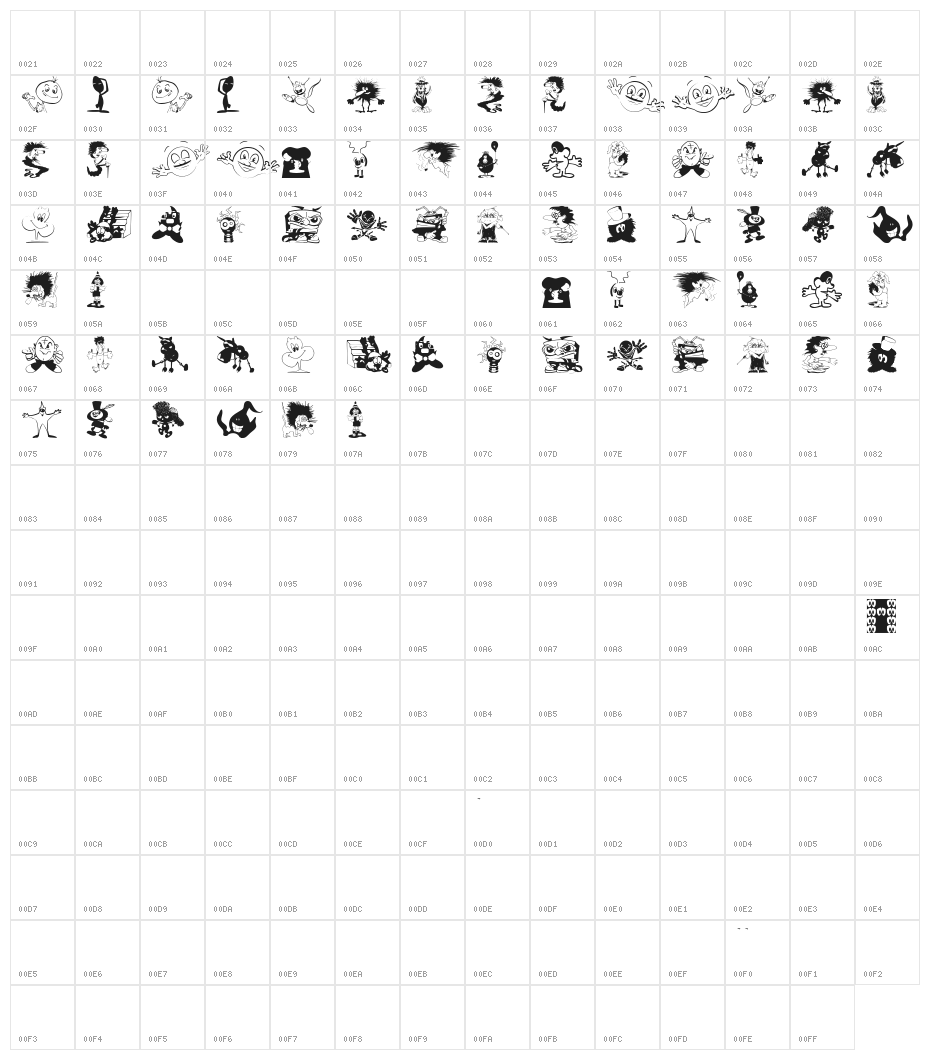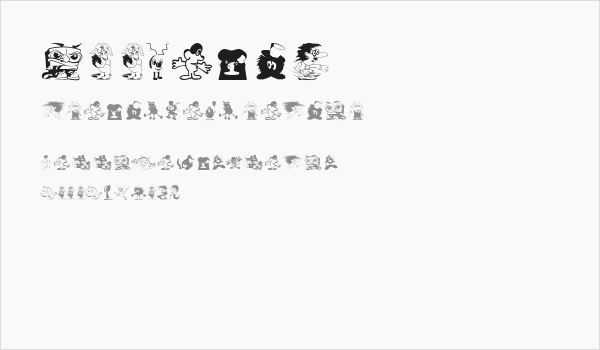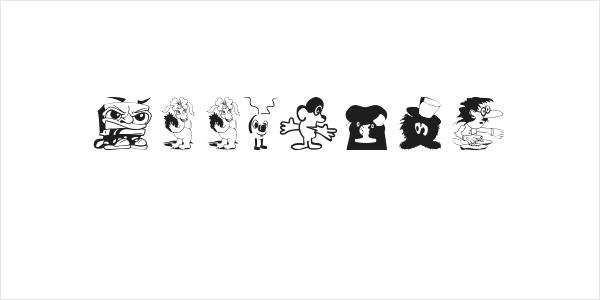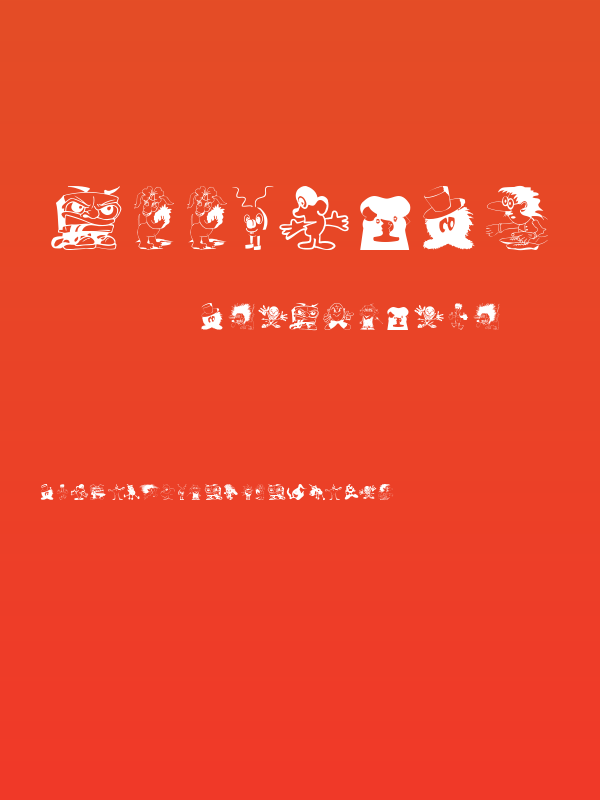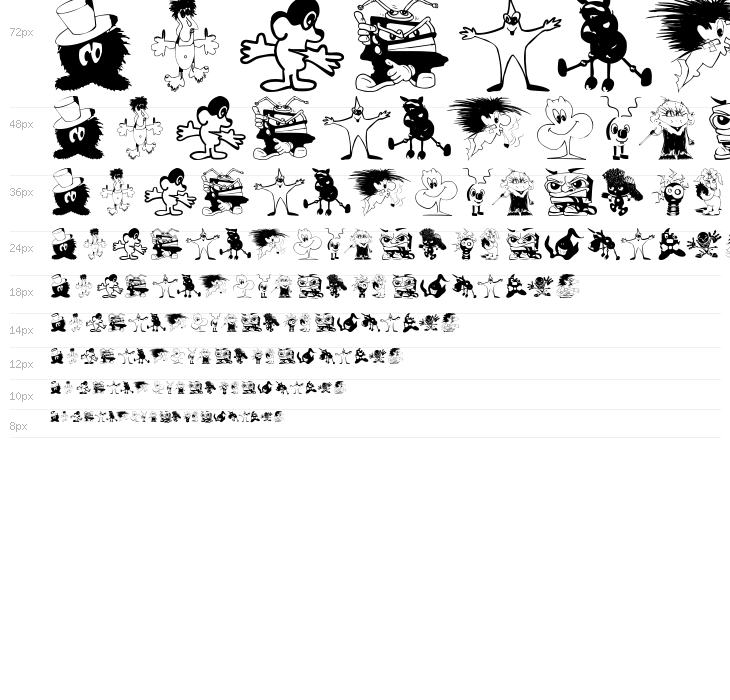
Offbeats Font
Offbeats Description
A playful and highly decorative collection of cartoonish character illustrations, each glyph represented by a unique, whimsical figure with exaggerated expressions and poses. The style is bold, with strong black-and-white contrast and a hand-drawn, comic-inspired aesthetic.
| Overall Style | Playful, Whimsical, Comic, Decorative |
| Use Case | Logos, Posters, Headlines, Themed event materials |
| Proposed Projects | ChildrenΓ’β¬β’s books, comic strips, party invitations, playful branding, posters, novelty merchandise. |